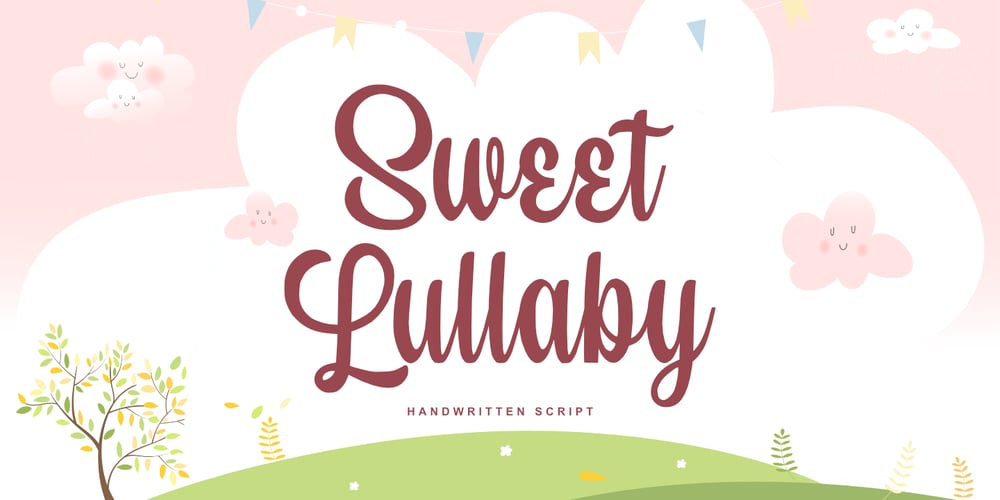
Sweet Lullaby Font Family was designed by Ardian Nuvianto and published by Ardian Nuvianto. Sweet Lullaby contains 1 styles and family package options. Sweet Lullaby is consisting of a fashionable handwritten-style script make looks stylish. This font was created to look as close to a natural handwritten script as possible by including standard ligatures and stylistic alternates.Sweet Lullaby is perfect for branding projects, logo, wedding designs, social media posts, advertisements, product packaging, product designs, label, photography, watermark, invitation, stationery and anything that you want.More than 200 of glyphsStandard LigaturesStylistic alternatesWorks on PC & MacSimple installationsAccessible in the Adobe Illustrator, Adobe Photoshop, Adobe InDesign, even work on Microsoft Word.PUA Encoded Characters – Fully accessible without additional design software.Drop me message if you have any questions.Or you can mail me atdamarkurung8@gmail.comHope you enjoy itThanks